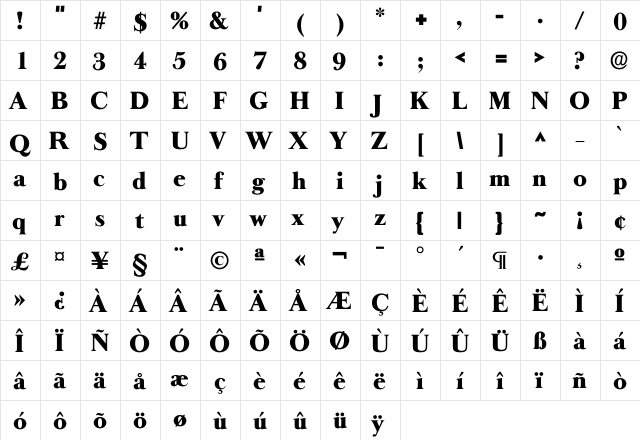
Oldbasker Heavy
Design Context for Oldbasker Typeface
Oldbasker offers clean, dependable letterforms without strong stylistic allegiance, making it a practical choice for designers who need flexibility.